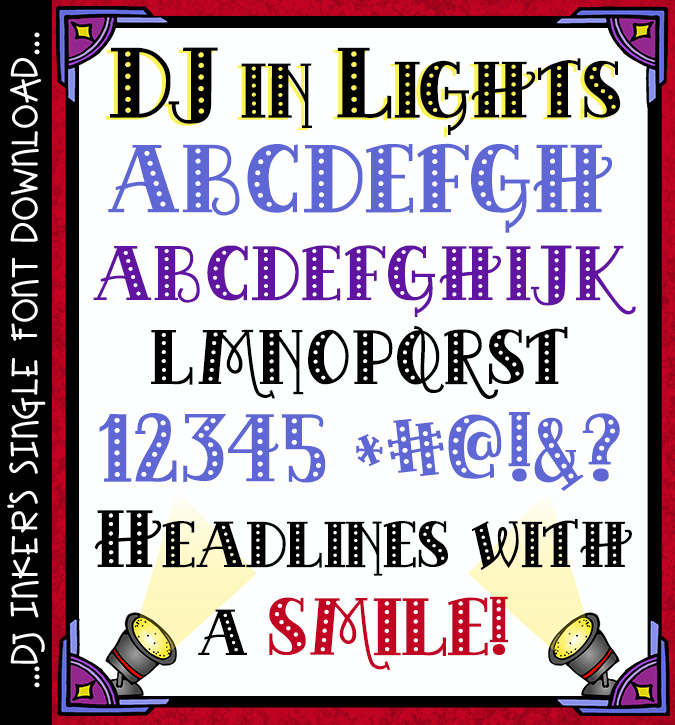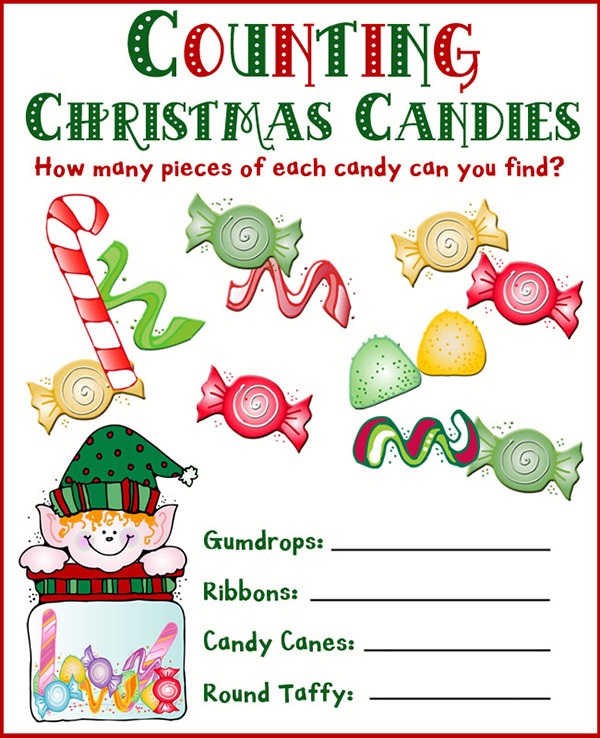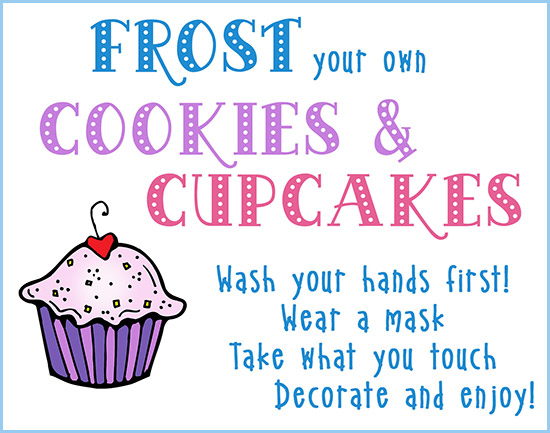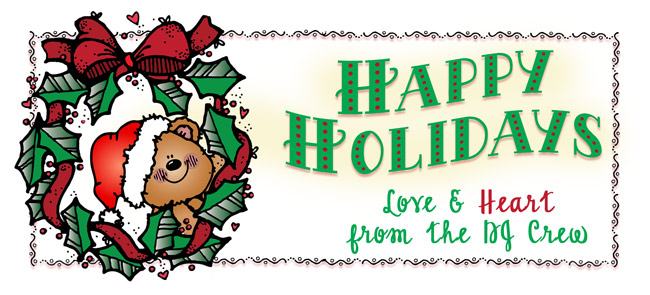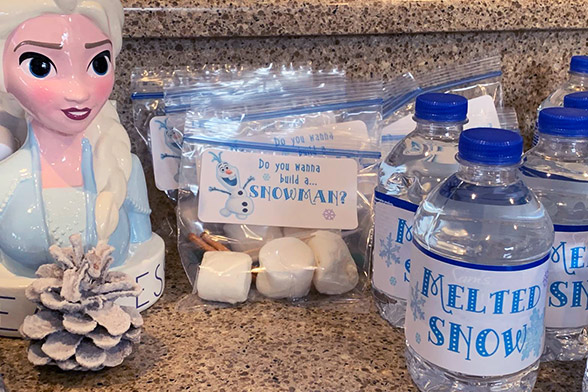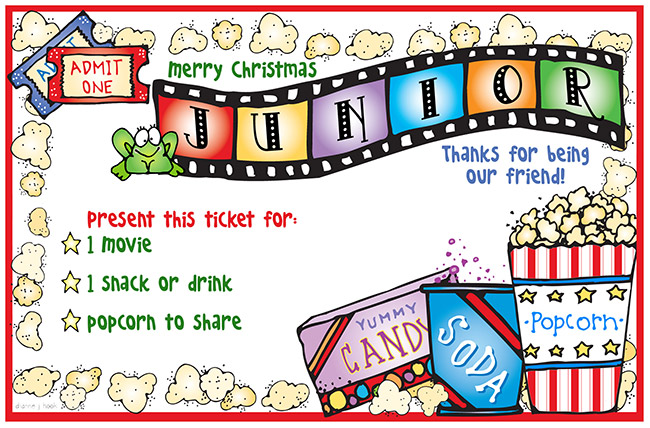
Font-astic Fonts DJ In Lights Font Download
Type a bold statement or headline with our DJ in Lights art deco font
DJ In Lights Font Download
Type a bold & stylish statement with our dazzling headliner font: DJ in Lights! Your words will truly make a statement. Perfect for parties, holidays, posters, and creating smiles all year.